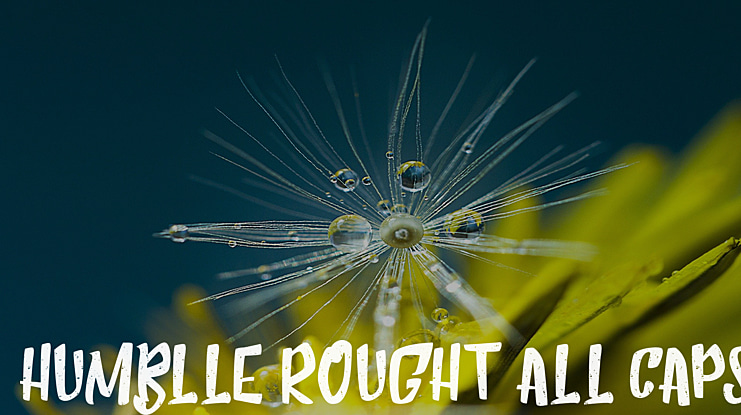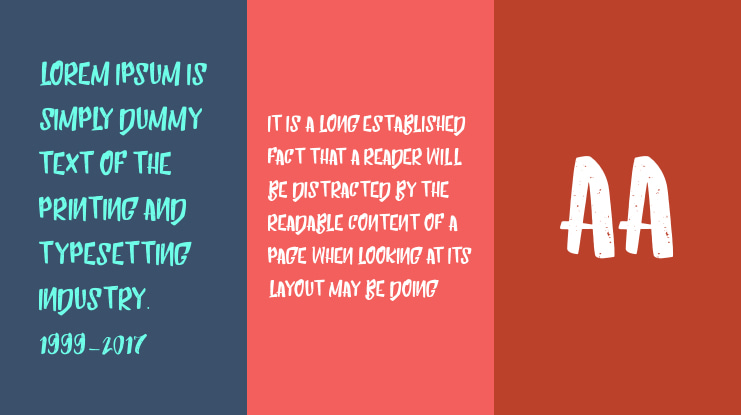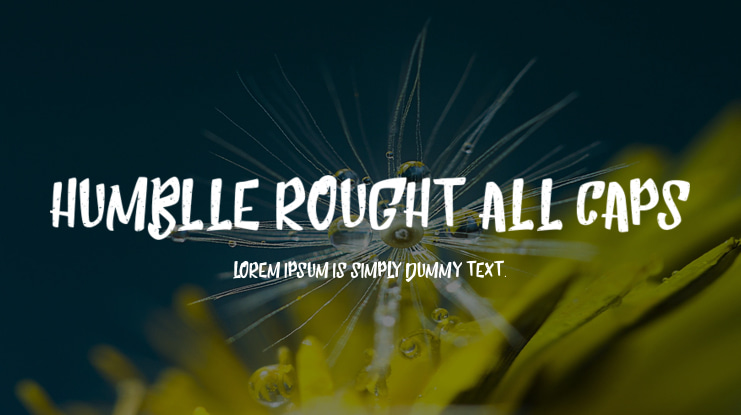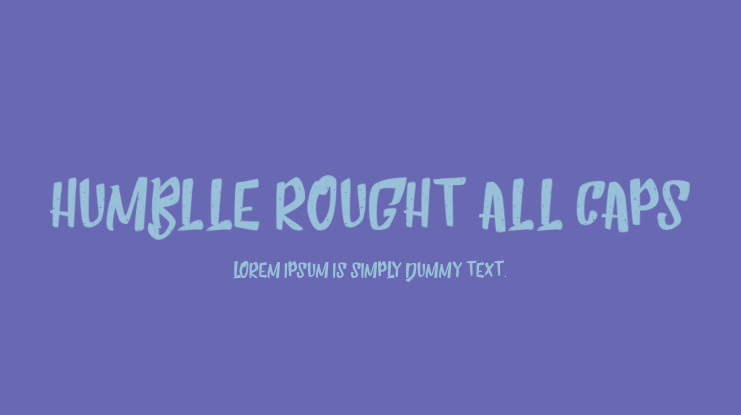
Humblle Rought All Caps Font
Humblle Rought - a modern vintage Brush typeface style with some combination of style Street And LifeStyle. wild hand and imperfect flow give the natural looks. So beautiful on invitation like greeting cards, branding materials, business cards, quotes, posters, and more!